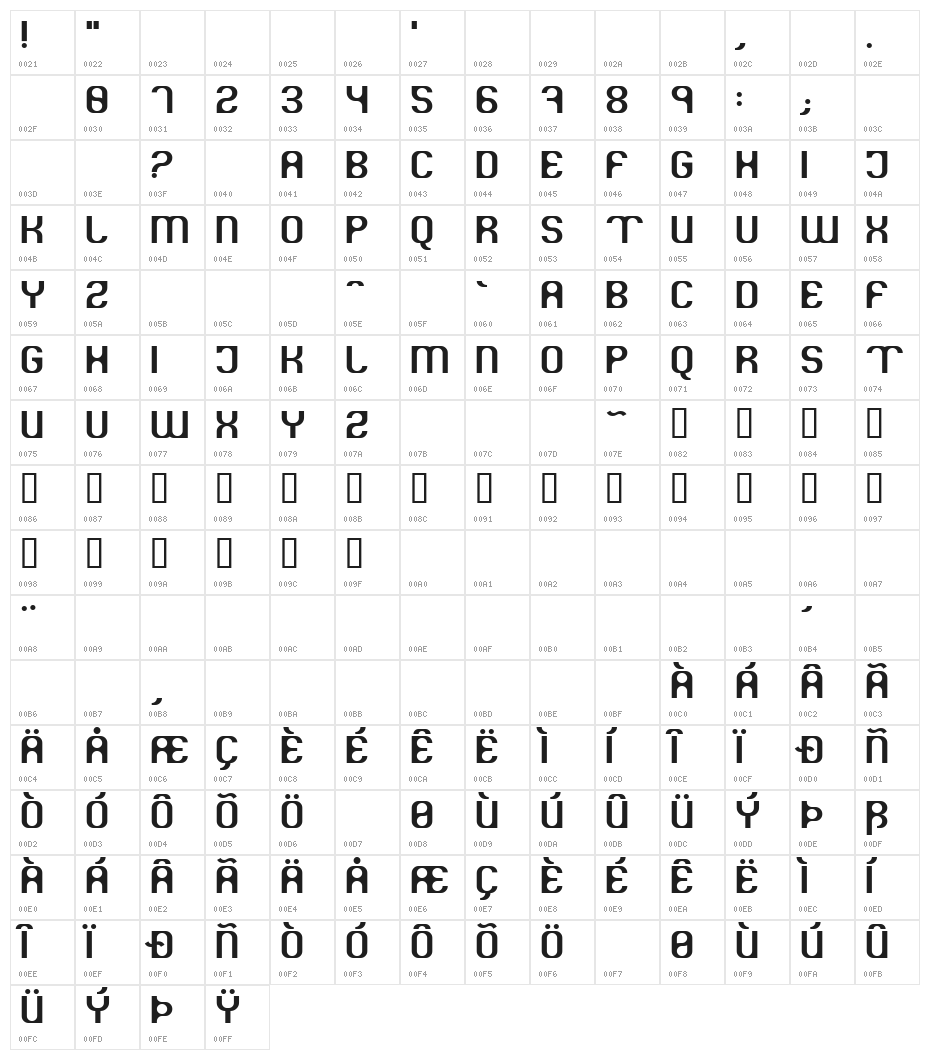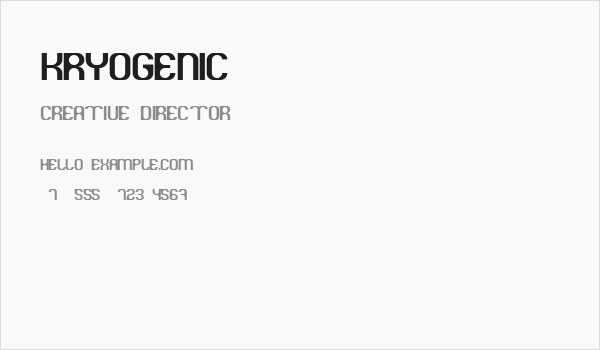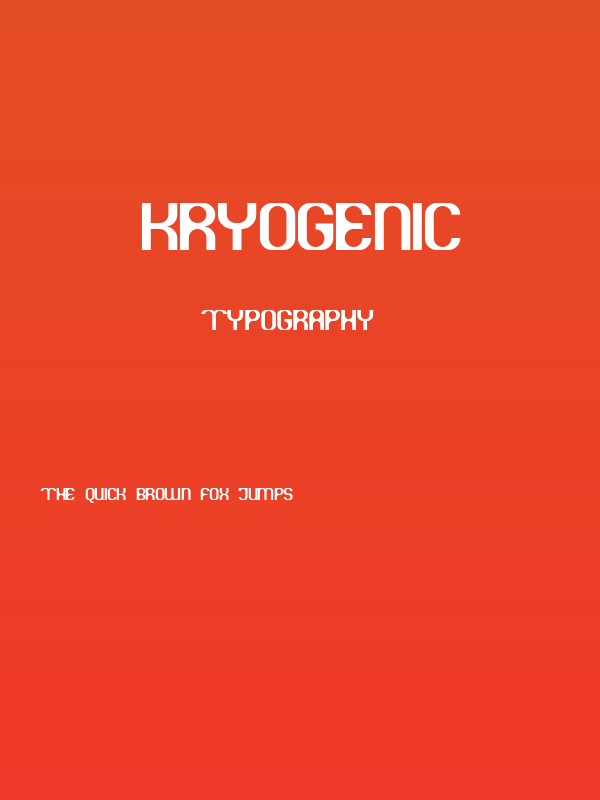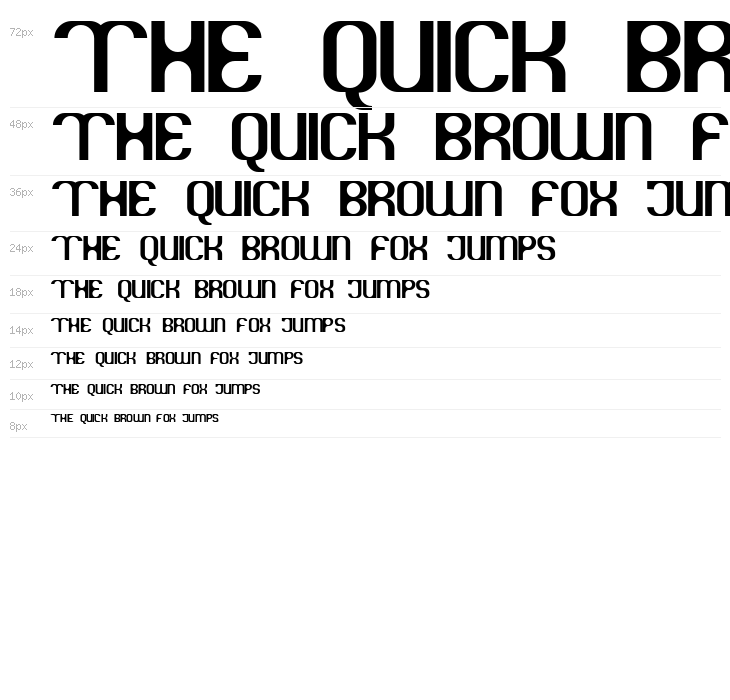
Kryogenic Font
Kryogenic Description
This font features a bold and futuristic design with a geometric structure. The characters are crafted with a unique blend of curves and straight lines, creating a modern and dynamic appearance. The uppercase and lowercase letters maintain a consistent style, with rounded edges and a slightly condensed form. The numerals and special characters follow the same design principles, ensuring uniformity across all glyphs. The overall look is sleek and contemporary, making it suitable for projects that require a strong visual impact.
| Proposed Projects | Ideal for technology branding, sci-fi movie posters, modern advertising, and innovative product packaging. |